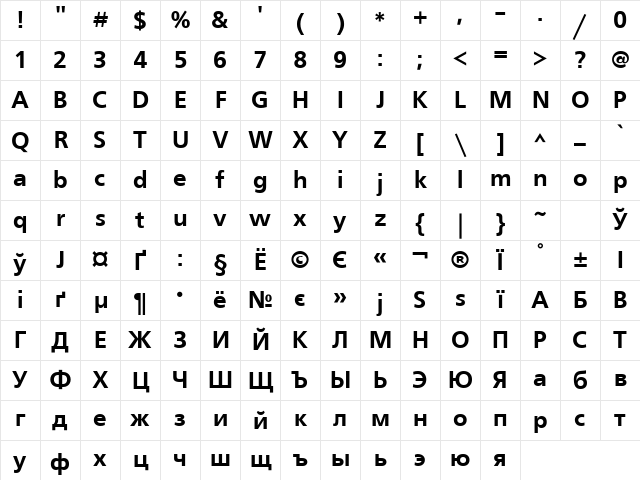
FreeSet Bold Cyrillic Free Font
FreeSet Bold Cyrillic
Style: Bold Cyrillic
Design Context for FreeSet
FreeSet is a composed and adaptable typeface that performs quietly and consistently across a wide range of design contexts. Its bold stroke weight gives it real presence on the page.